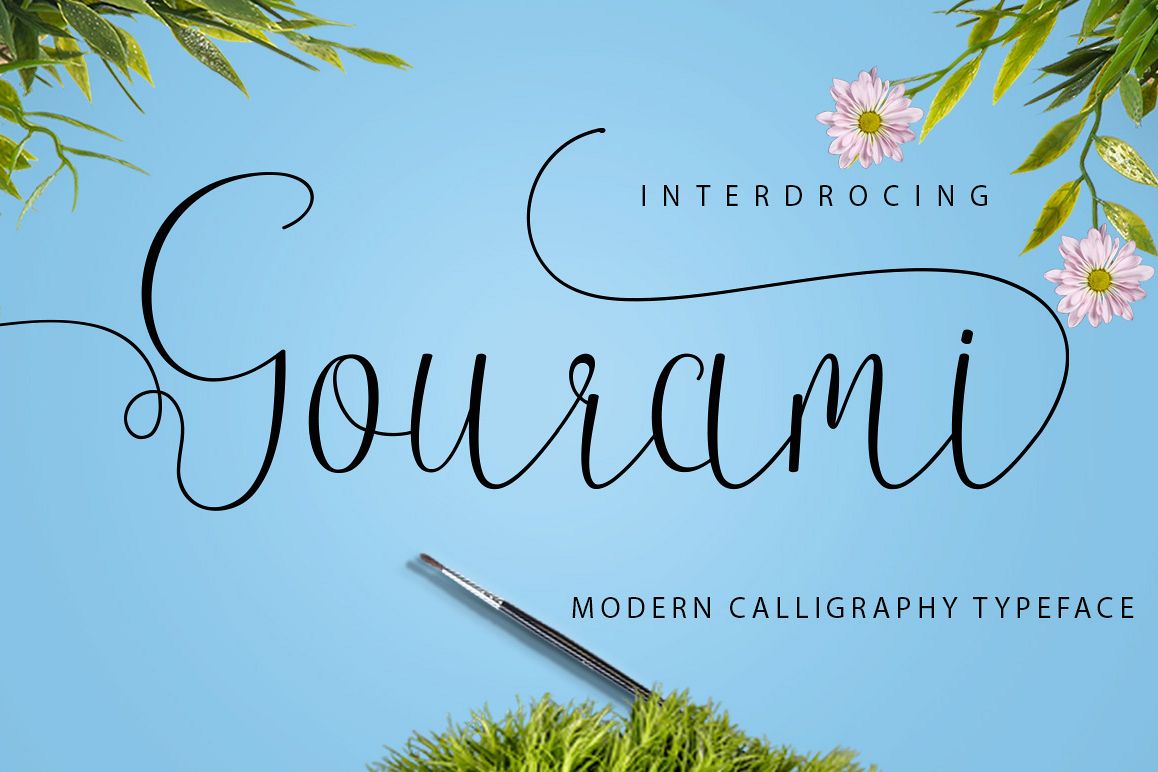
Gourami
Gourami Modern Calligraphy. This font was designed by handwriting, and it has a modern and unique forms of calligraphy, the writing style is very natural.
The Features of this fonts is;
Standart ligatures
Stylistic Alternates
Contextual Alternates
Stylistic sets